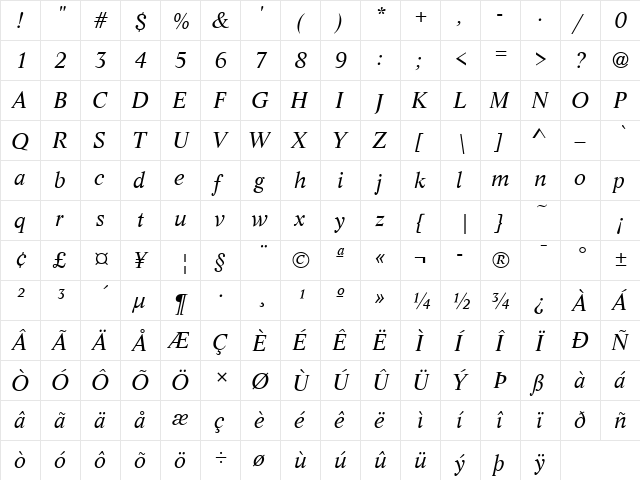
LifeT Italic
Design Context for LifeT Typeface
LifeT takes a measured approach to typography — its balanced proportions and neutral character make it a reliable workhorse for both digital and print work. The slanted form adds forward momentum and visual energy.
Pro Tip: Try LifeT for annotation and caption copy alongside an upright companion — the contrast in angle creates a dynamic but ordered typographic system.